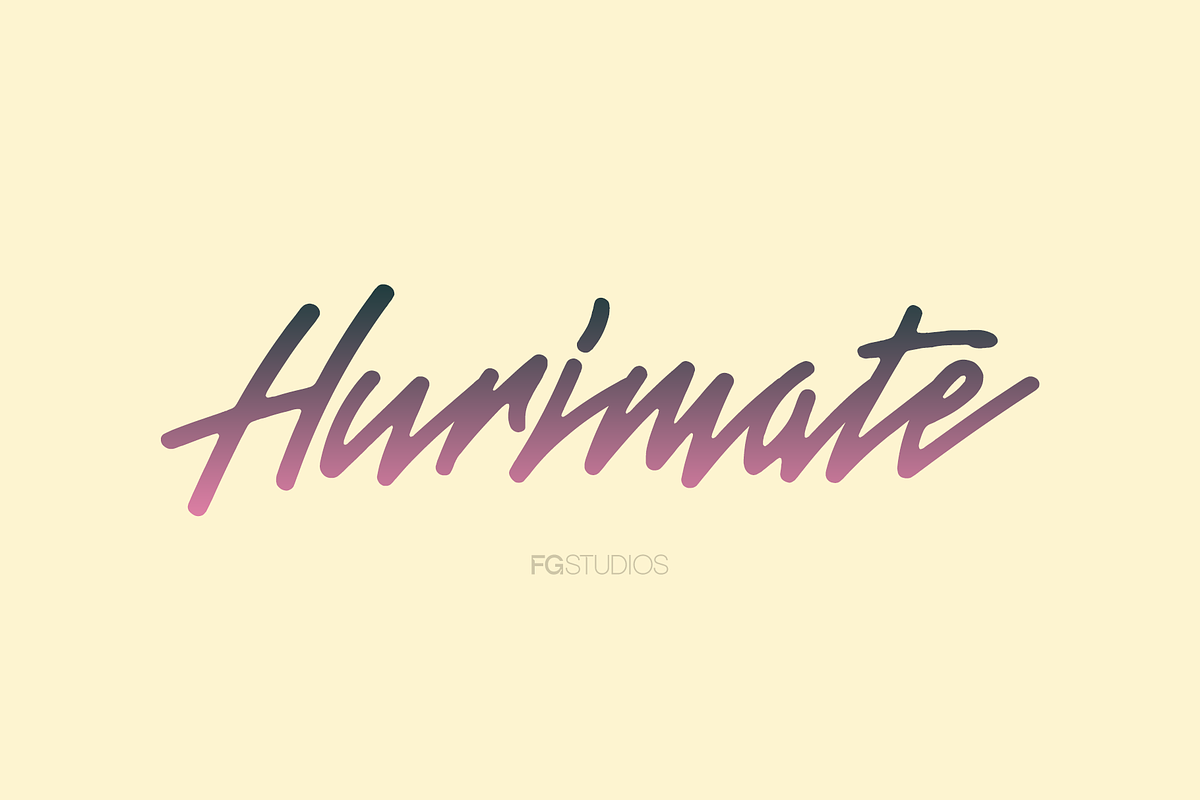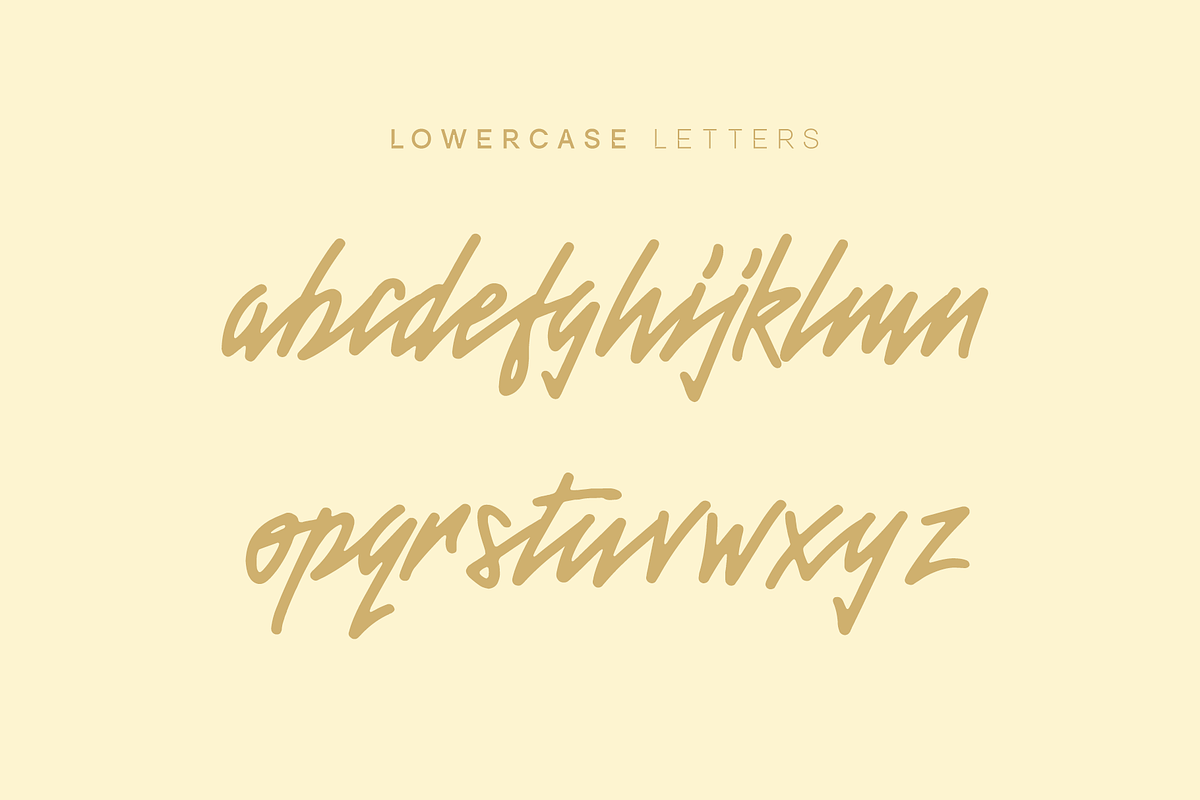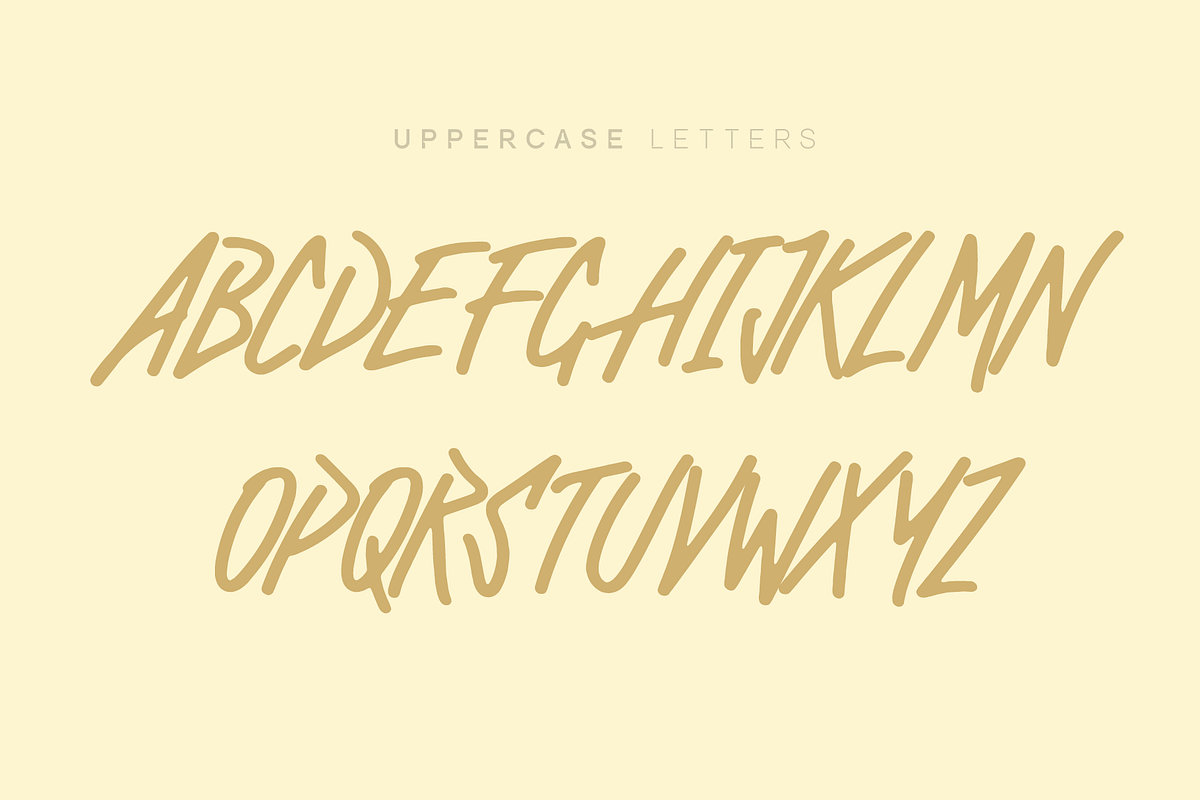
Hurimate Pro
Hurimate Pro will be great for projects such as: logos, greeting cards, posters, packaging and so much more!
- Uppercase & lowercase letters, numbers, punctuation